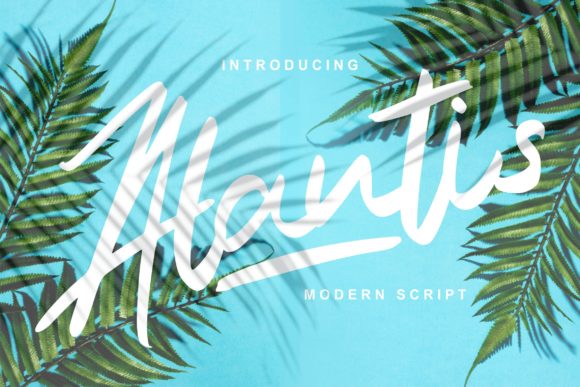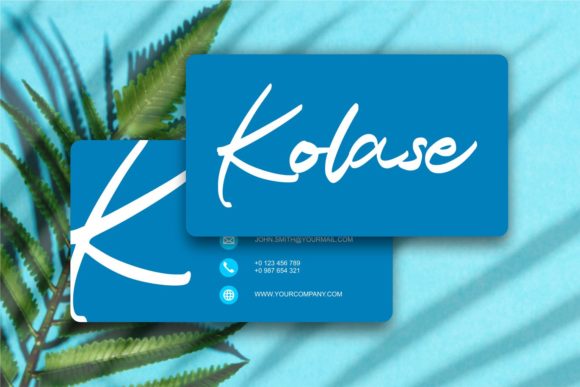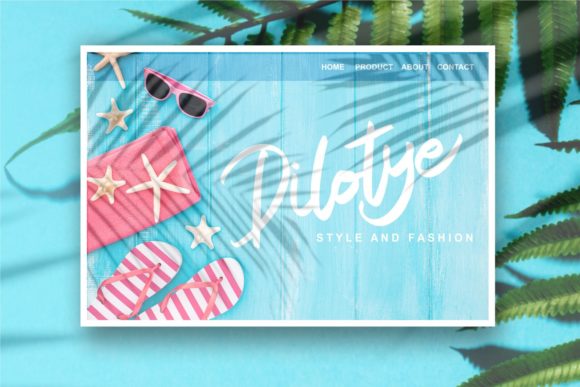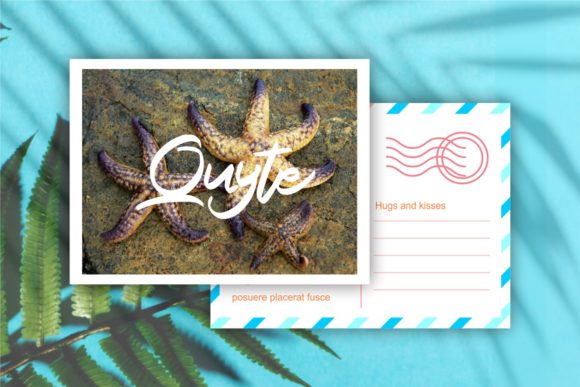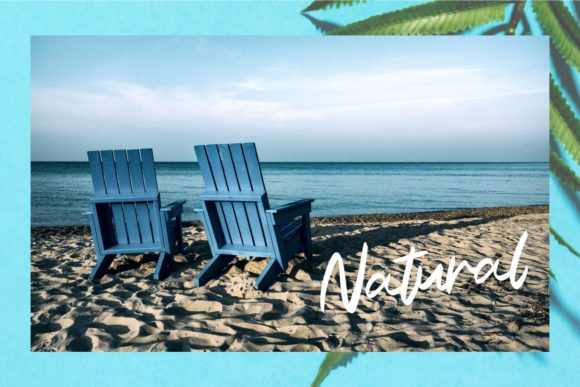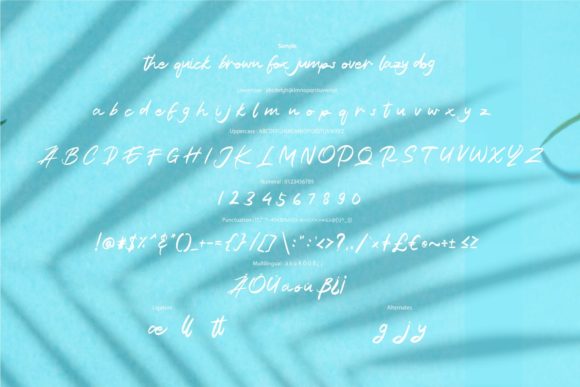
Alantis Font
About Alantis Font
Alantis is inspired by classic typography and brings its own unique and modern style to any design project. This handwritten font is PUA encoded which means you can access all of the fantastic glyphs and swashes with ease!